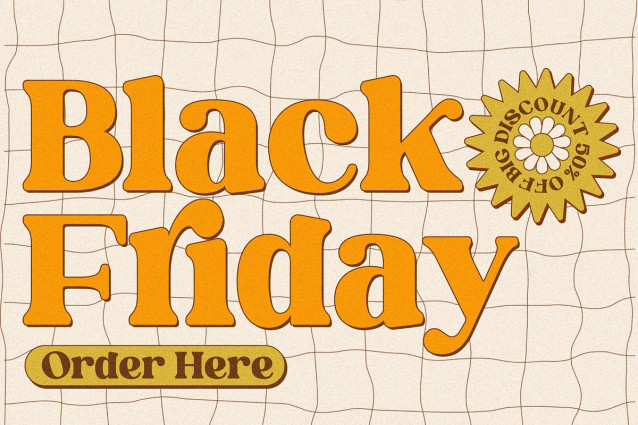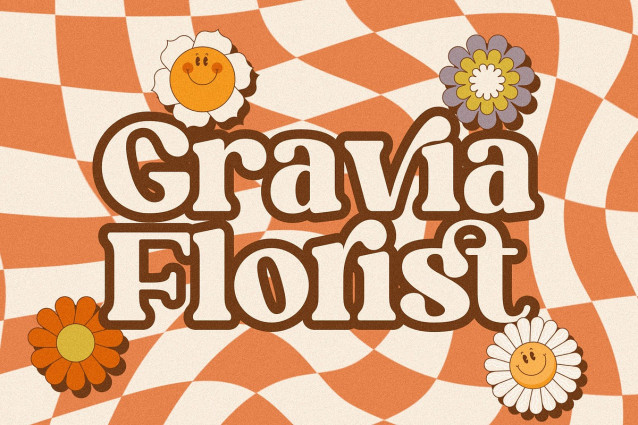
Melista Font
Melista Font, a cute display retro serif font that features unique and playful shapes. This font is perfect for fashion, branding, and logo design projects that want a dash of whimsy and creativity. You can apply Melista for logos, branding, posters, flyers, invitations, and more.
You can access the alternates and ligatures through OpenType features or by using a glyphs panel. You can also mix and match the uppercase and lowercase letters to create stunning combinations. Melista comes with a full set of characters, including numbers, punctuation, symbols, and multilingual support.